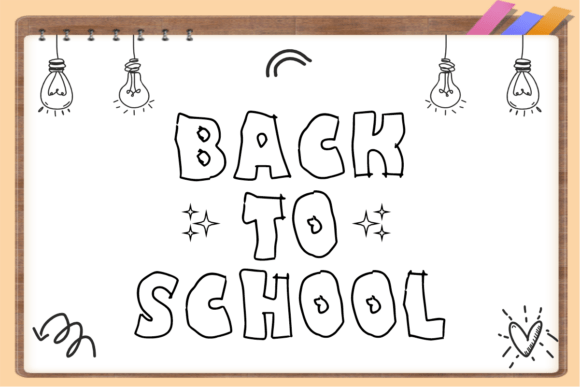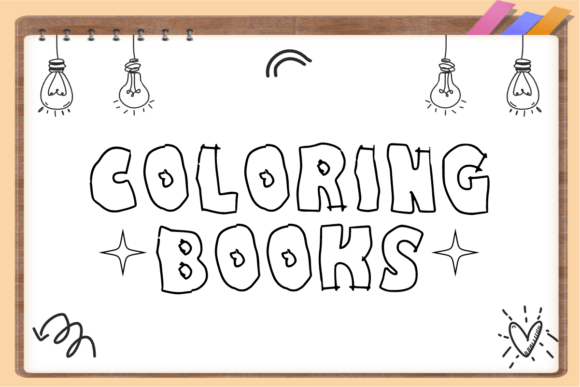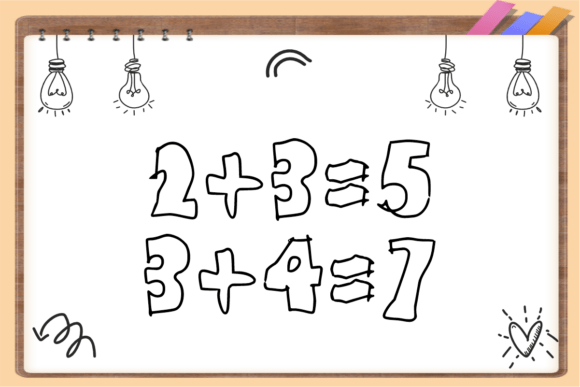
Introduction to Simple Doodles Font
Simple Doodles is a bold and hand-drawn font that mimics doodles on a notebook page.
With thick, uneven strokes and sketchy charm, it’s perfect for educational materials, kid-centric designs, coloring pages, and casual posters Its fun and approachable style appeals to both teachers and young learners.
Key Features of Simple Doodles Font
Why Choose Simple Doodles Font?